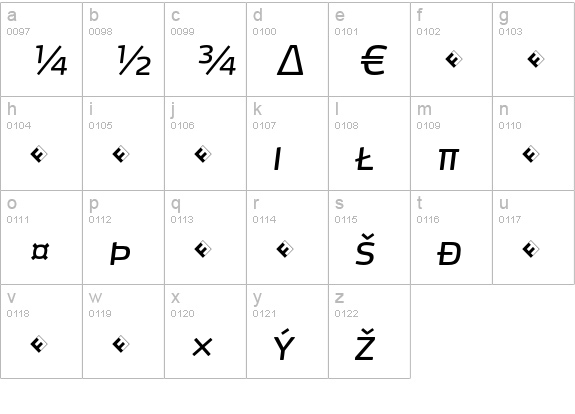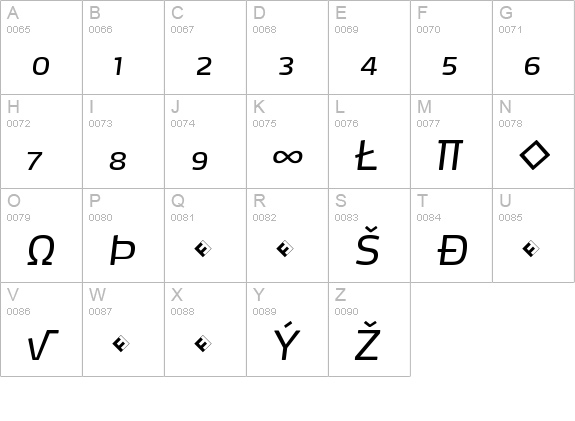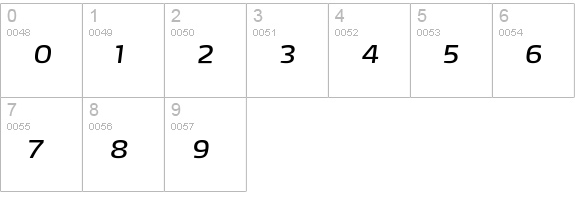
Max-RegularItalicSCExpert Font Details
The Max-RegularItalicSCExpert font is a stylish and elegant typeface that exudes sophistication and professionalism. Its slender and slanted design gives off a modern and sleek vibe, making it perfect for a wide range of design projects. Whether you are creating invitations, branding materials, or editorial layouts, this font will add a touch of class to your work. The Max-RegularItalicSCExpert font is not only visually appealing but also highly readable, making it suitable for both display and body text. Its expertly crafted italicized form adds a unique flair to any design, making it stand out from the crowd. Best of all, the Max-RegularItalicSCExpert font is available for free download at FontsMarket.com, allowing you to easily access this high-quality typeface for all your creative endeavors. Don't miss out on the opportunity to elevate your designs with the Max-RegularItalicSCExpert font today!